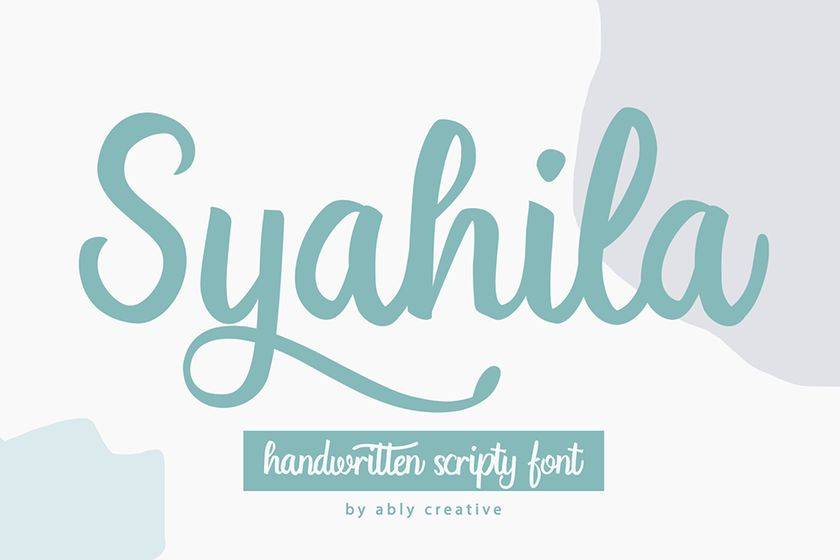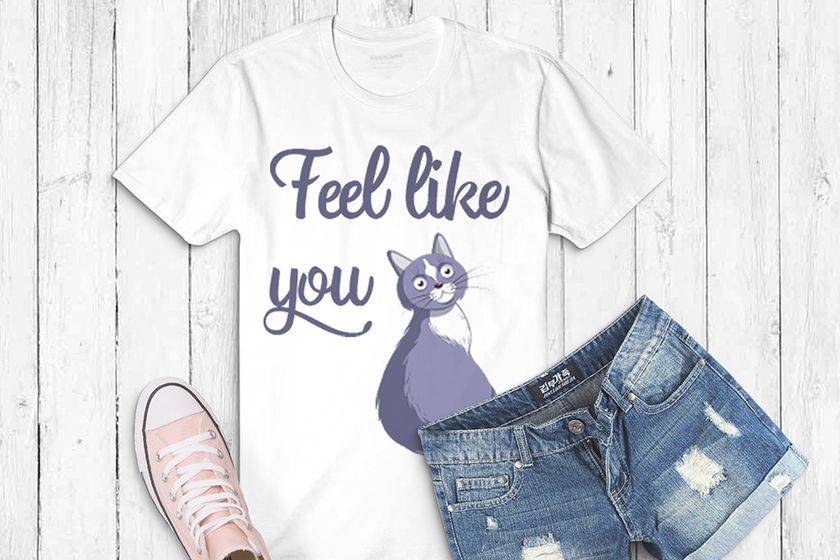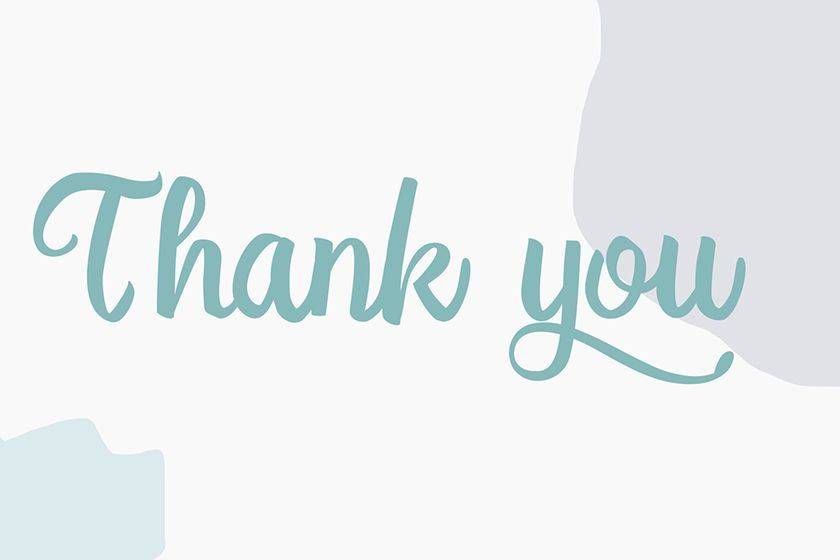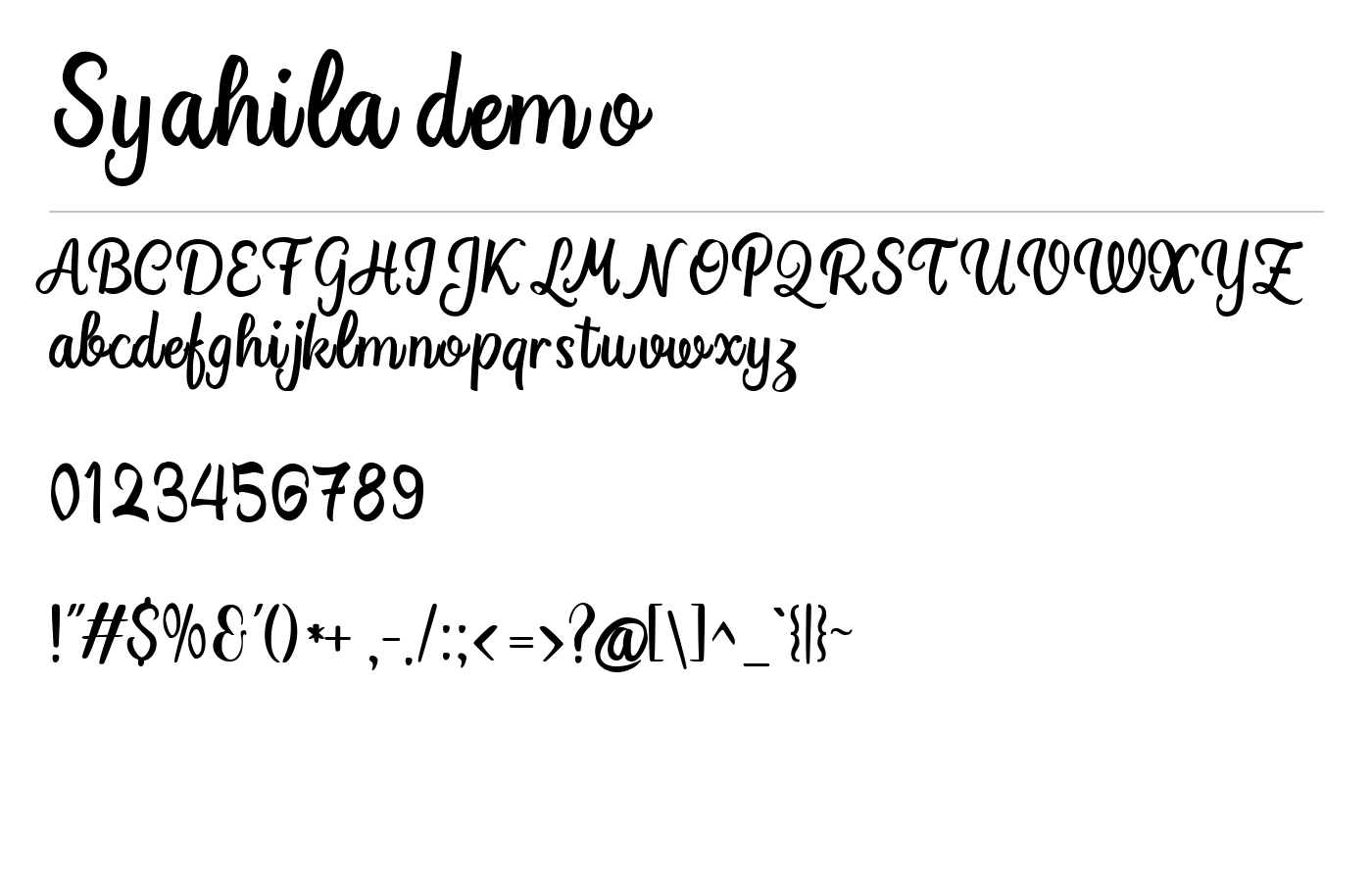
Syahila is a lively script font with a smooth, handwritten feel that combines a medium weight and a slightly condensed width, creating a neat yet casual look. Its fluid strokes and distinctive letterforms, including playful curves and single-story letter shapes, make it ideal for adding a friendly and creative touch to invitations, branding, and headlines. This font works well wherever a warm, approachable style is needed, balancing charm with readability.
Syahila Font
About Syahila Font
| Designer | Syahila demo 2020 created by Dedi Purwanto; ably creative |